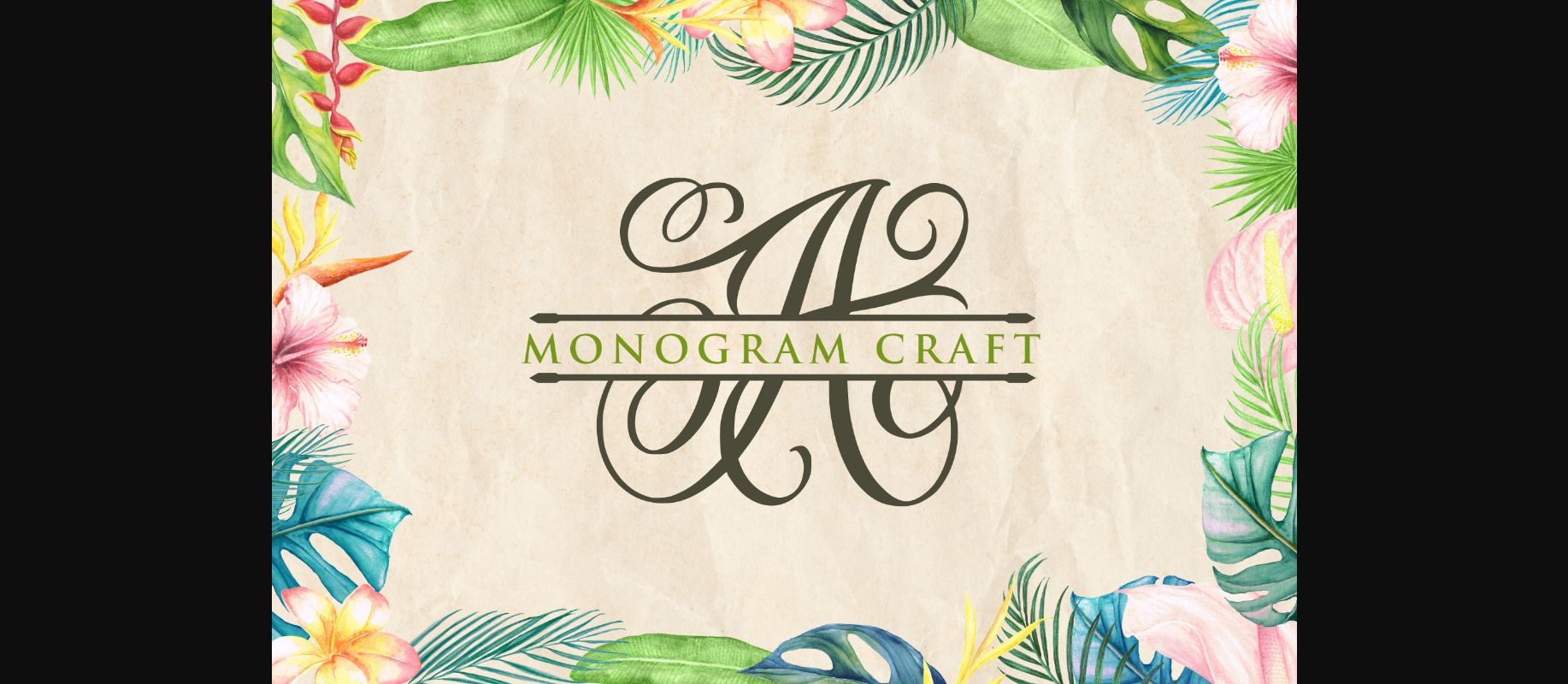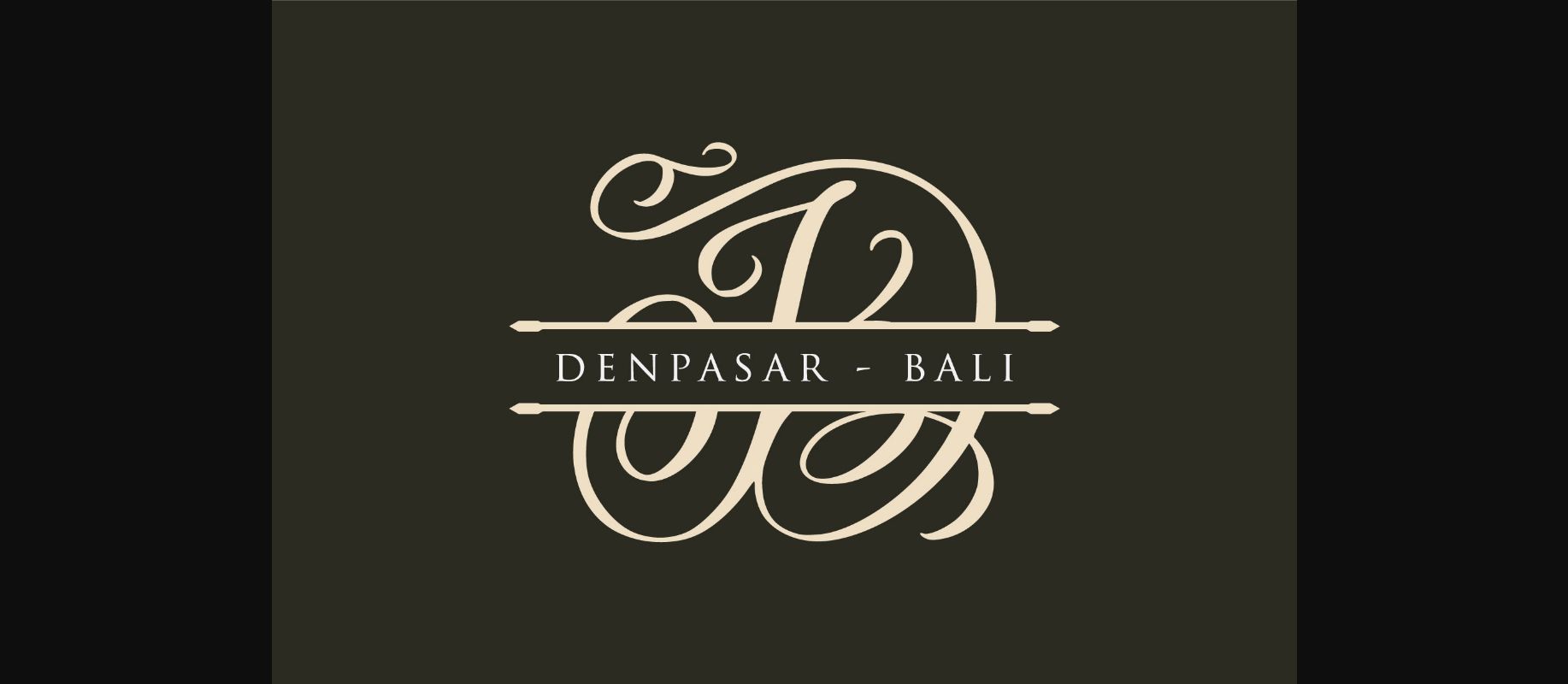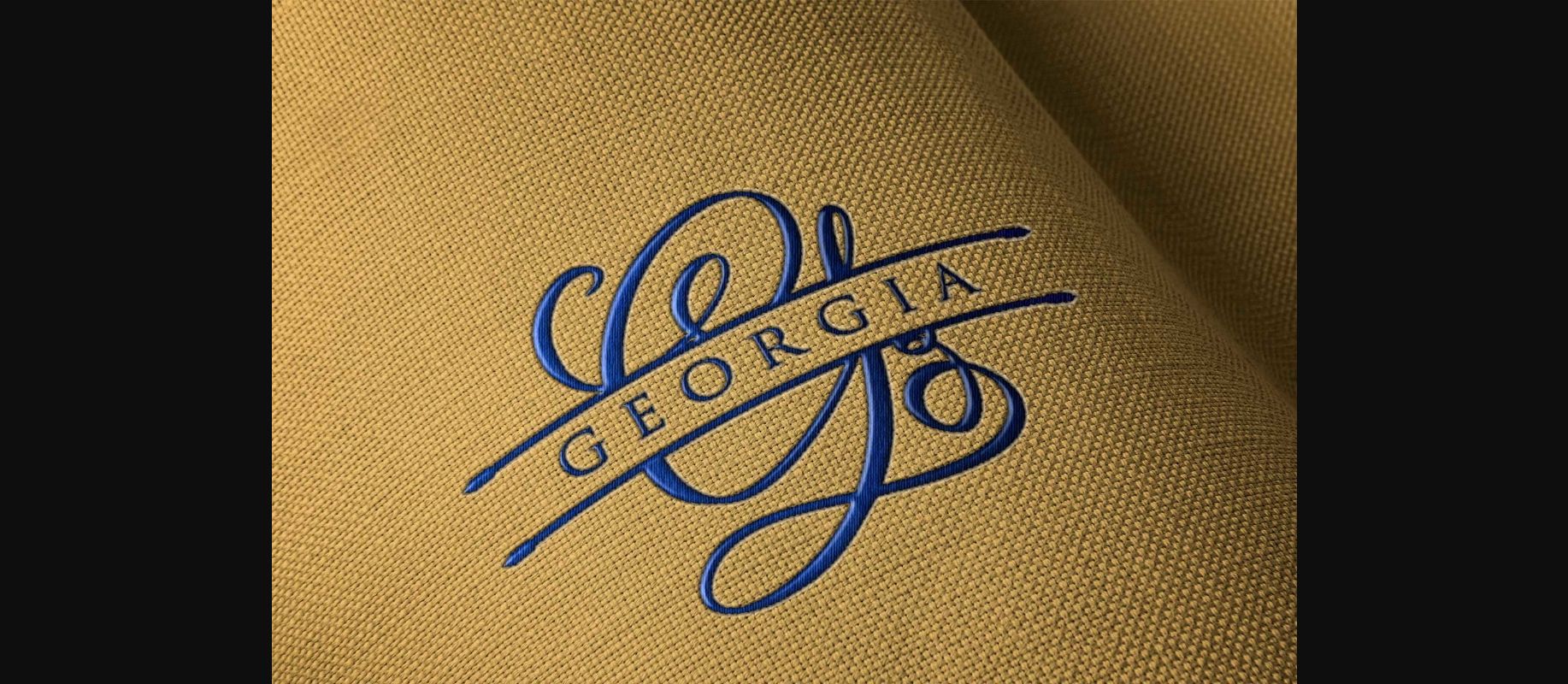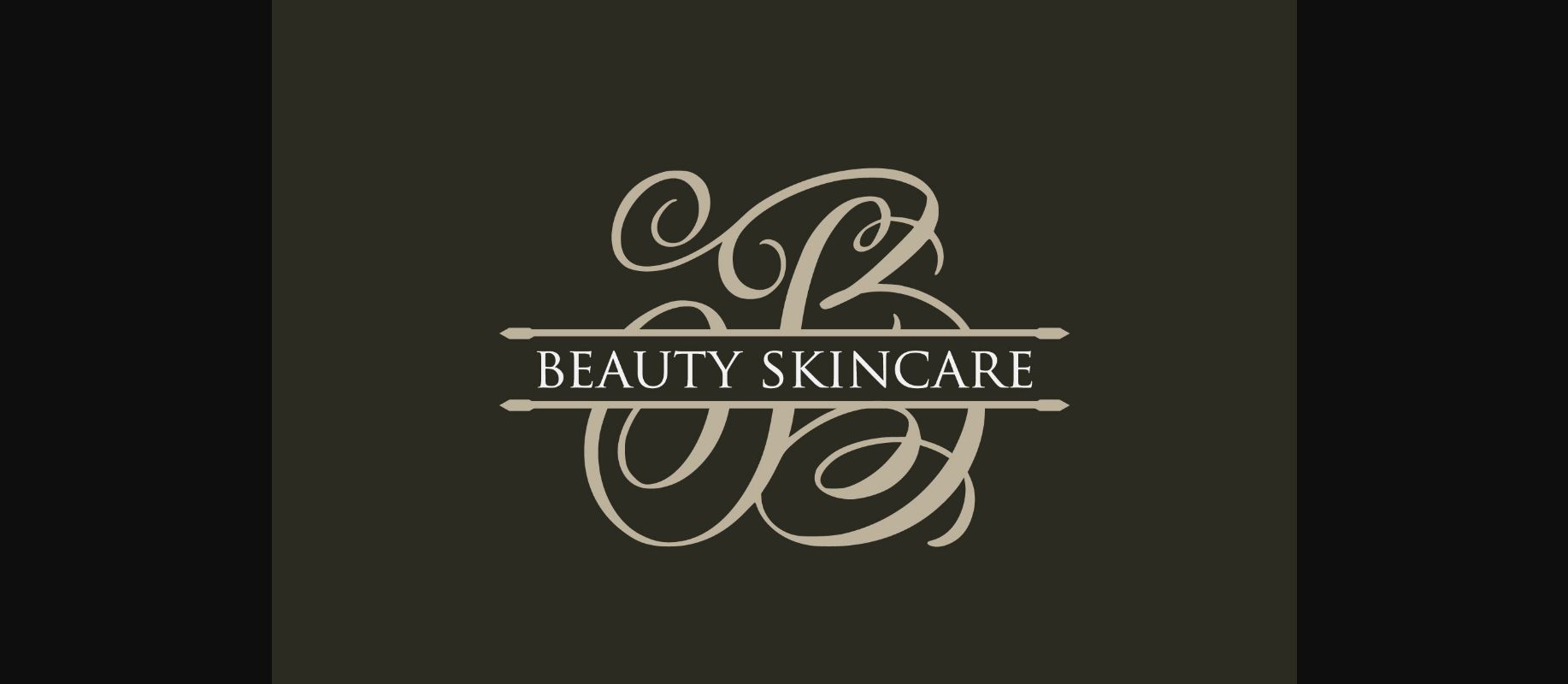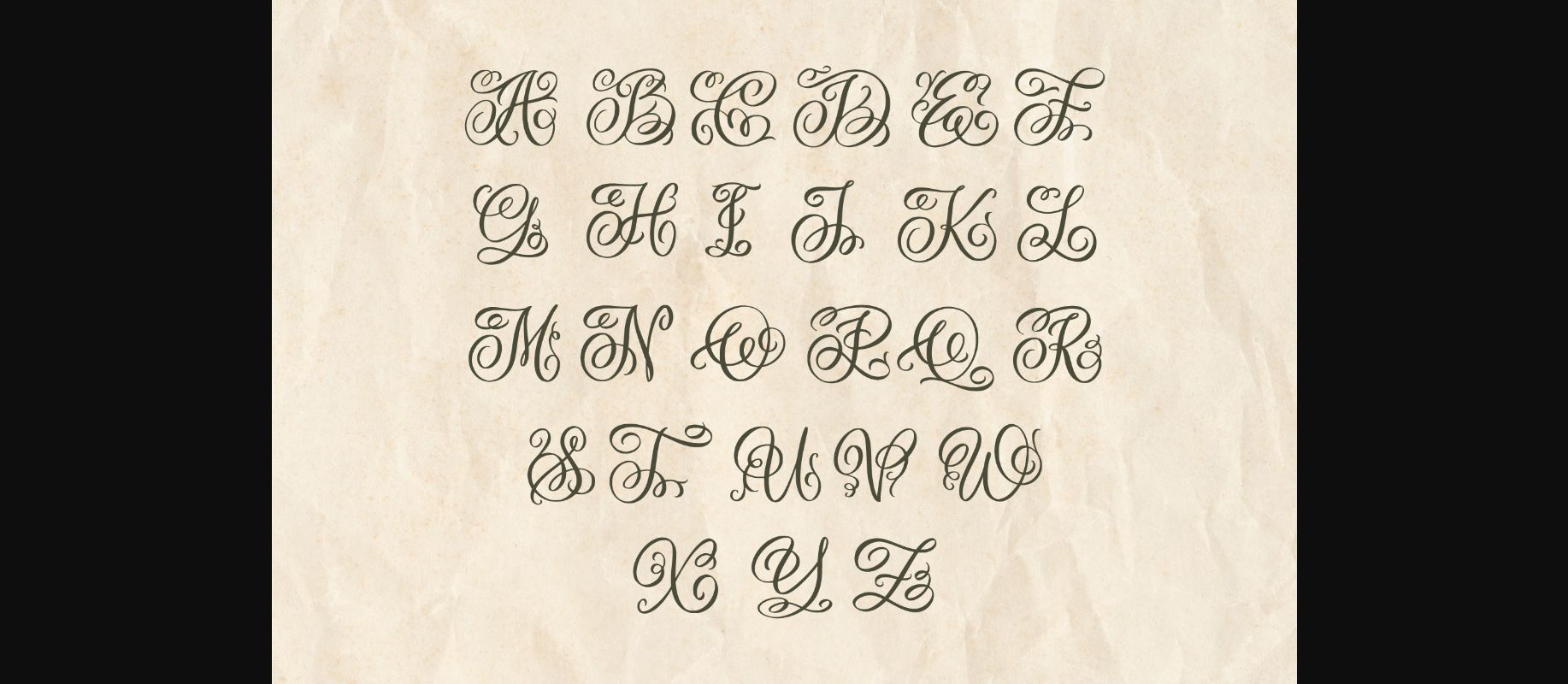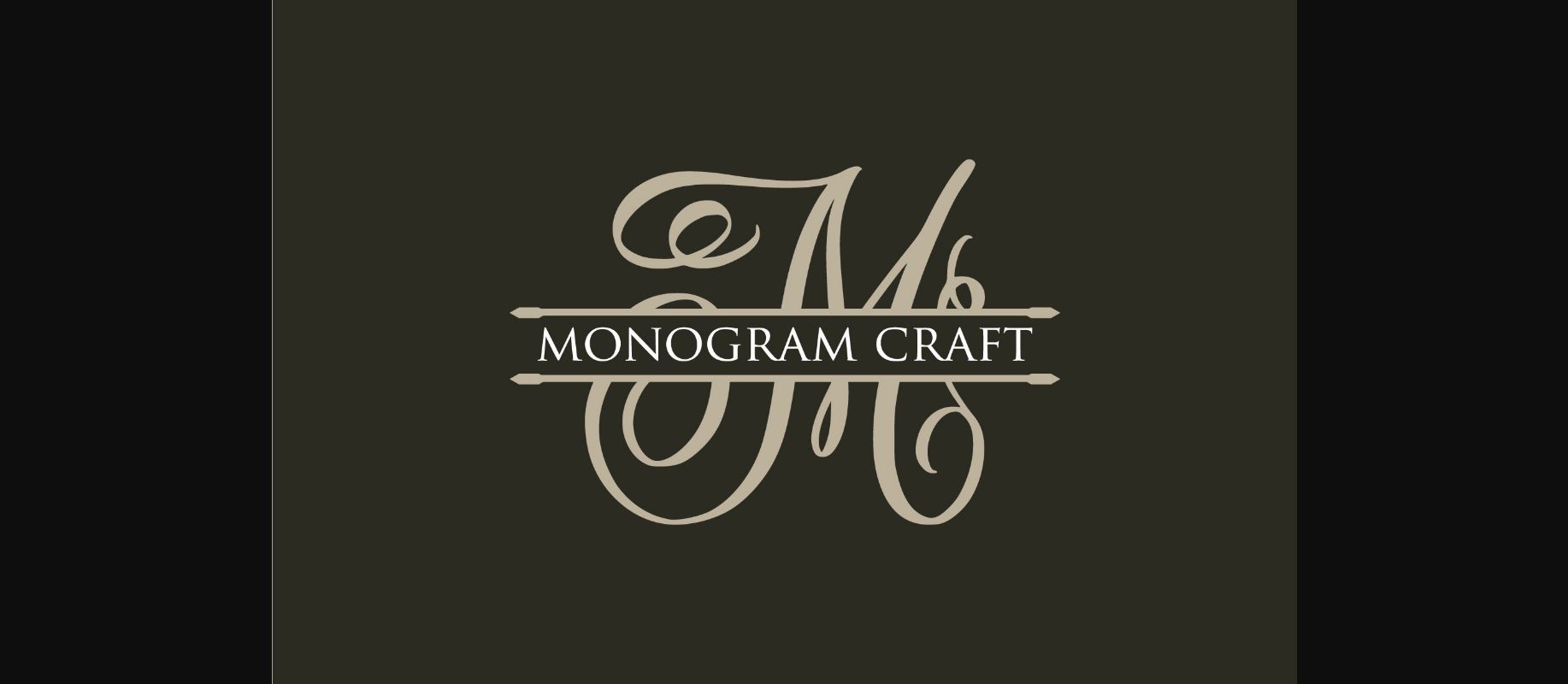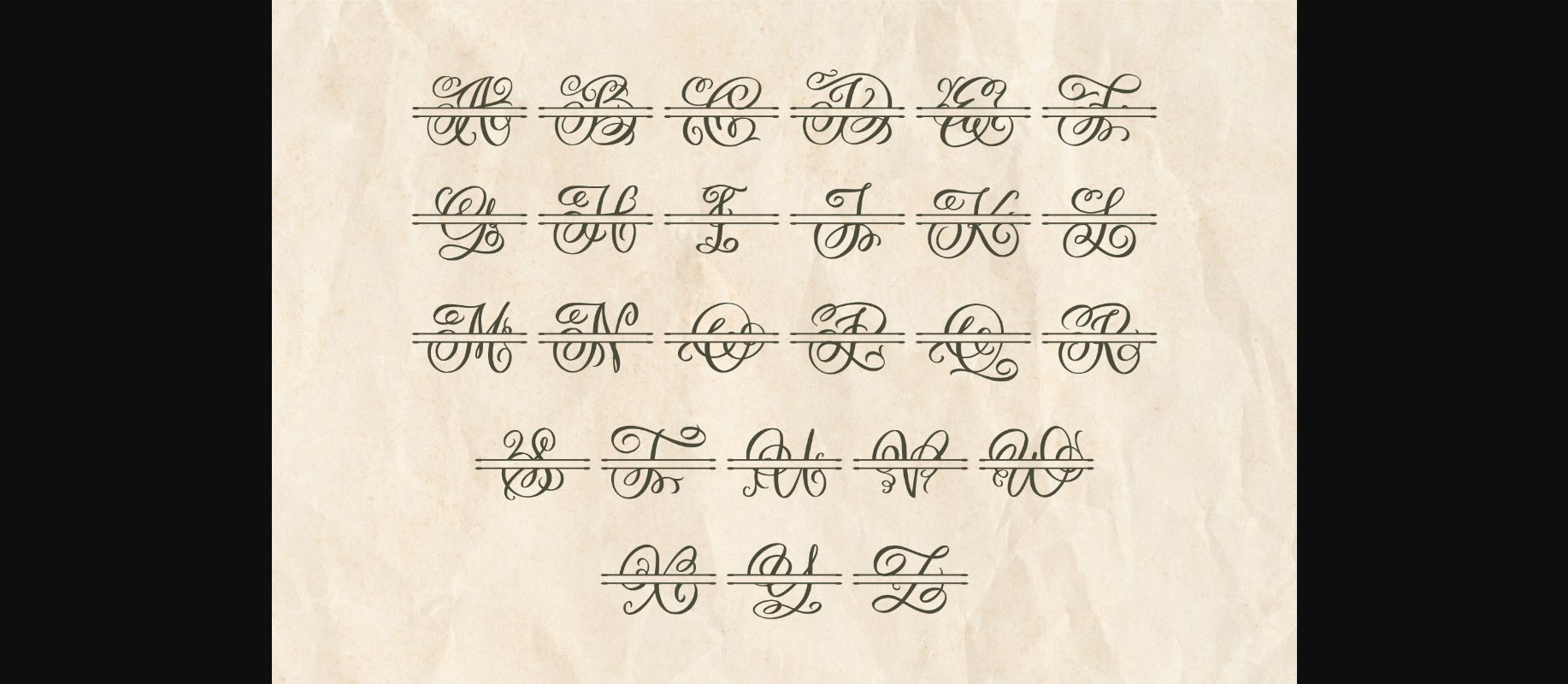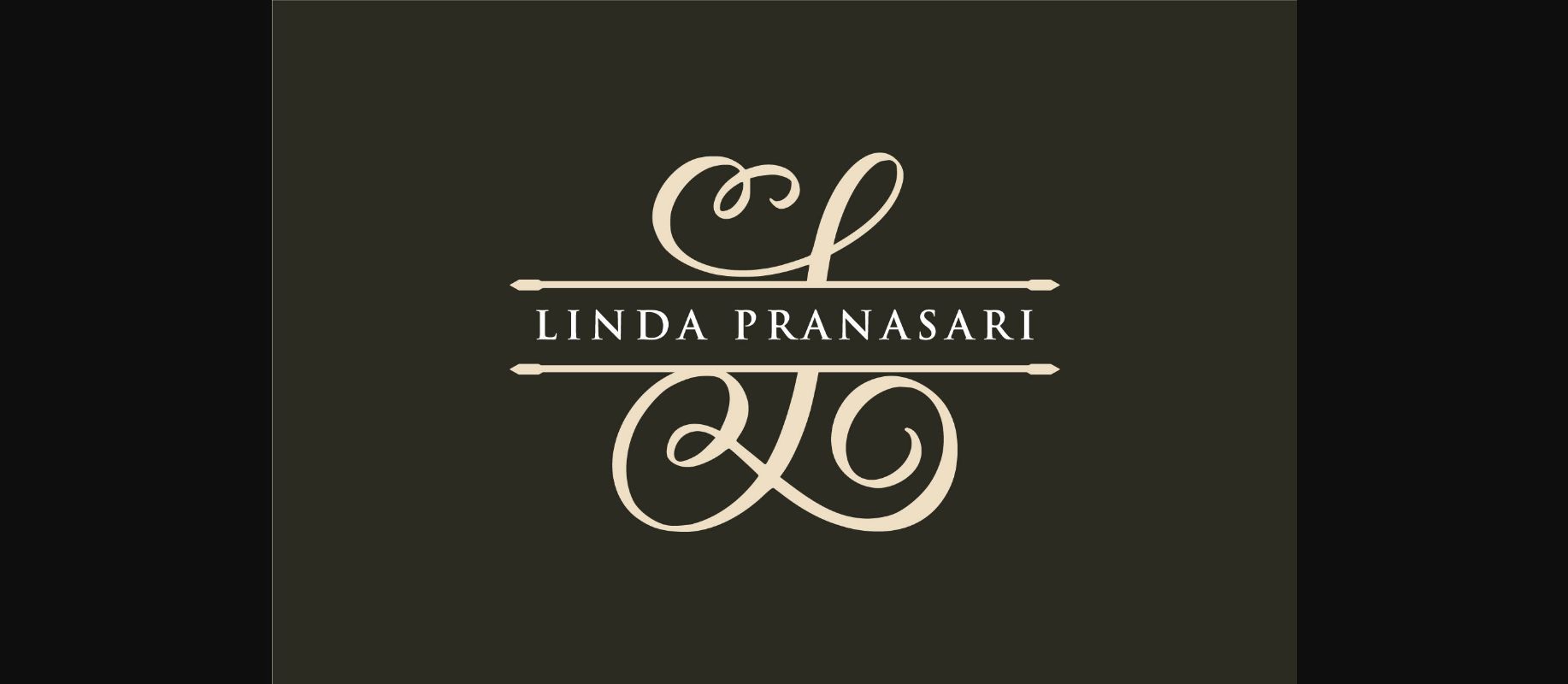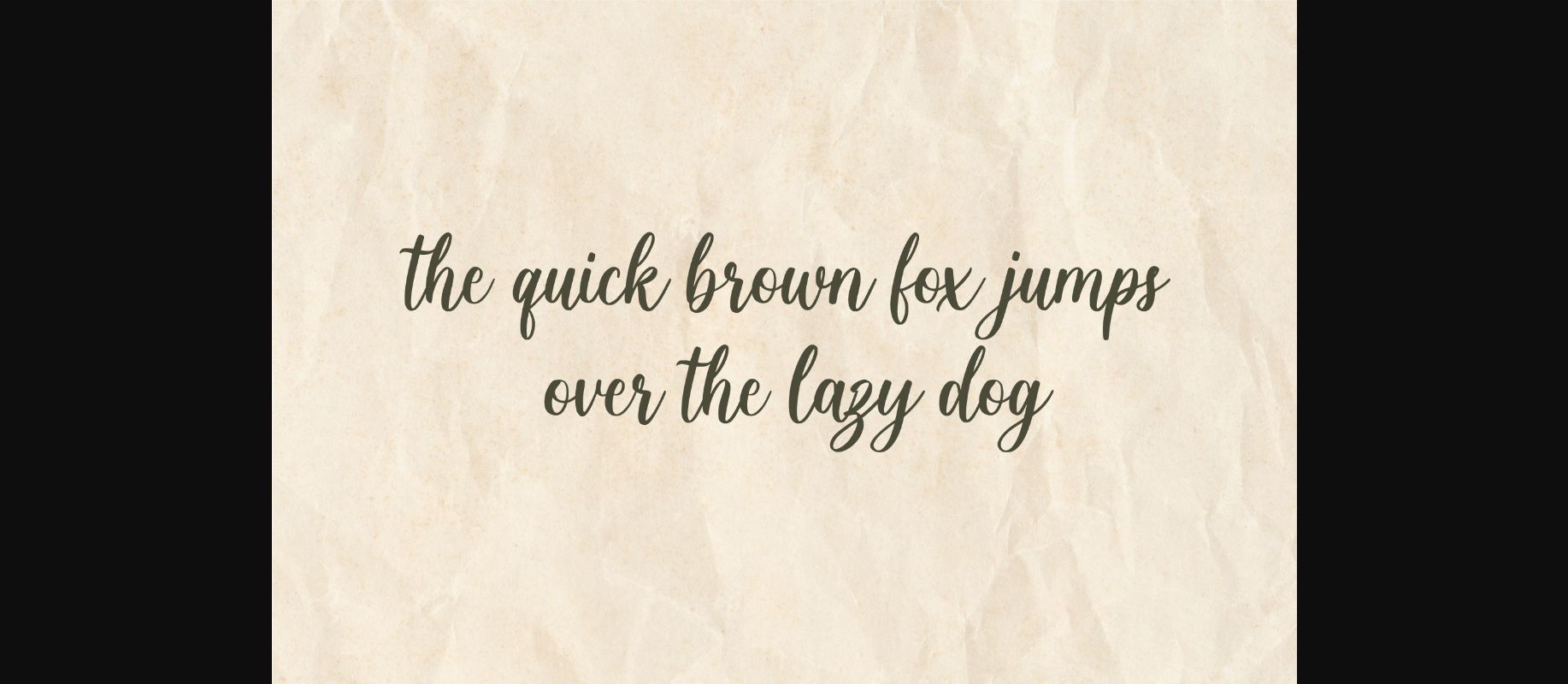
Monogram Craft Font
About Monogram Craft Font
Monogram Craft is a dainty and detailed decorative font. Add this distinct and lovely looking font to each of your love letters, wedding invitations or favorite design ideas, and you will be astounded by the outcome.